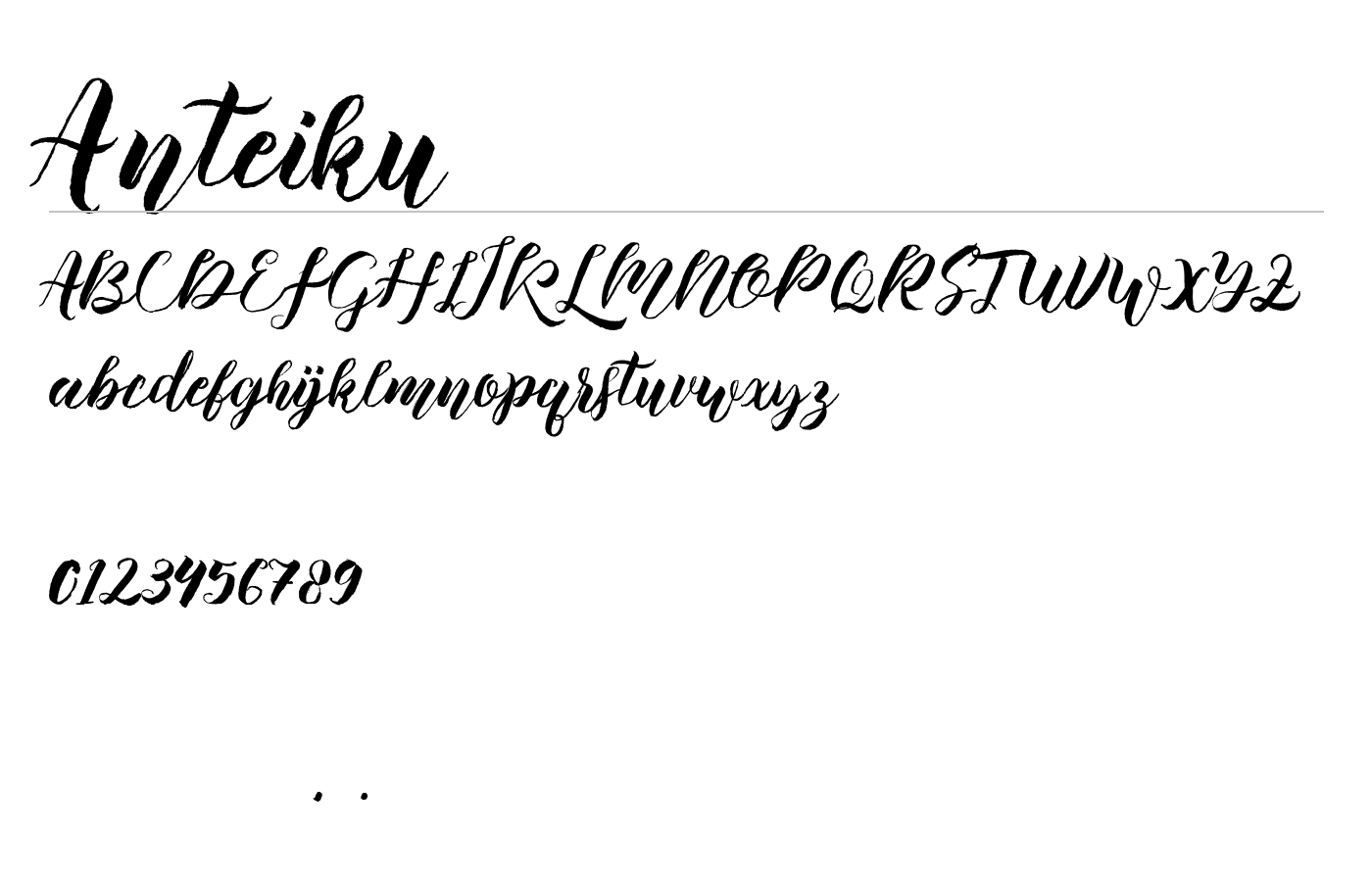
Anteiku Font is a lively and elegant script typeface featuring smooth, flowing strokes with a brush-like texture that gives it a warm, handcrafted feel. Its dynamic and slightly irregular letterforms make it perfect for creative branding, invitations, and artistic projects where a personal and expressive touch is desired. This font works well in logos, packaging, and headlines where a stylish, approachable, yet refined look is needed.
Anteiku Font
About Anteiku Font